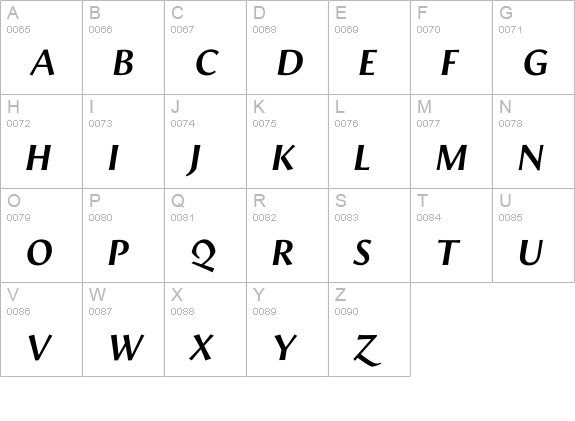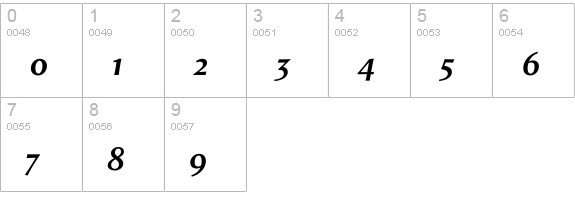
ShellSansExpert-BoldItalic Font Details
Introducing ShellSansExpert-BoldItalic, a stunning and versatile font that combines boldness and elegance in a unique way. With its sleek and modern design, this font is perfect for any project that requires a touch of sophistication. The bold and italicized characters of ShellSansExpert-BoldItalic make a bold statement, adding emphasis and style to your text. Whether you are designing a logo, creating a poster, or crafting a website, this font will captivate your audience and leave a lasting impression. But what truly sets ShellSansExpert-BoldItalic apart is its availability as a free download. Yes, you read that right - this extraordinary font is freely available to download at FontsMarket.com. Now you can bring a touch of professionalism to your projects without breaking the bank. With its wide range of characters and extensive language support, ShellSansExpert-BoldItalic is suitable for use in various contexts. From headlines to body text, this font seamlessly adapts to different sizes, ensuring readability and visual appeal. Don't miss out on the opportunity to elevate your designs with ShellSansExpert-BoldItalic. Download it for free today from FontsMarket.com and unlock the potential to create stunning visuals that leave a lasting impression.